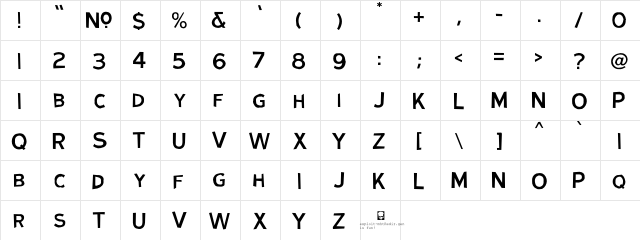
LHF Garner LIGHT Regular Font Preview
LHF Garner LIGHT Regular
LHF Garner LIGHT Regular Font Details
| Foundry | Duncan Wilkie for Letterhead Fonts |
| Designer | Duncan Wilkie for Letterhead Fonts |
Design Context for LHF Garner LIGHT Typeface
LHF Garner LIGHT offers clean, dependable letterforms without strong stylistic allegiance, making it a practical choice for designers who need flexibility. Its slender proportions lend an understated elegance to any composition.